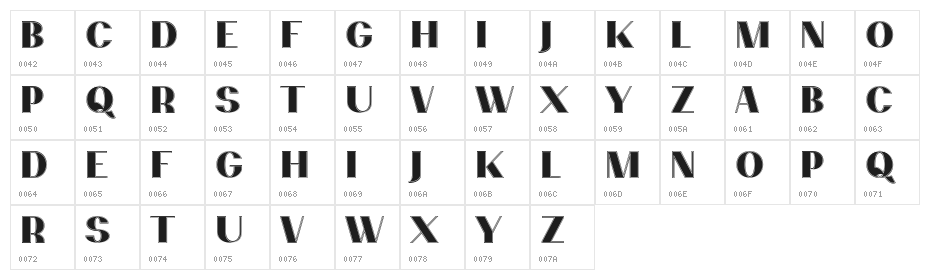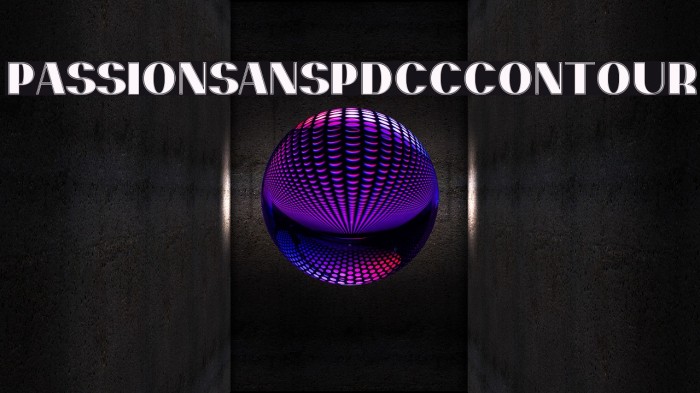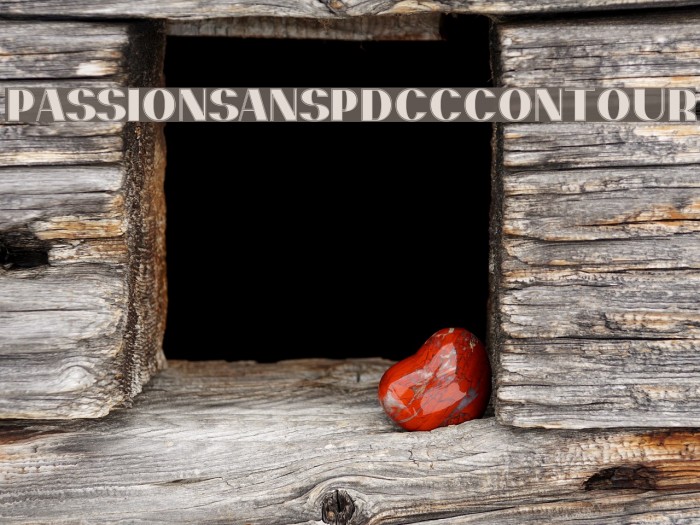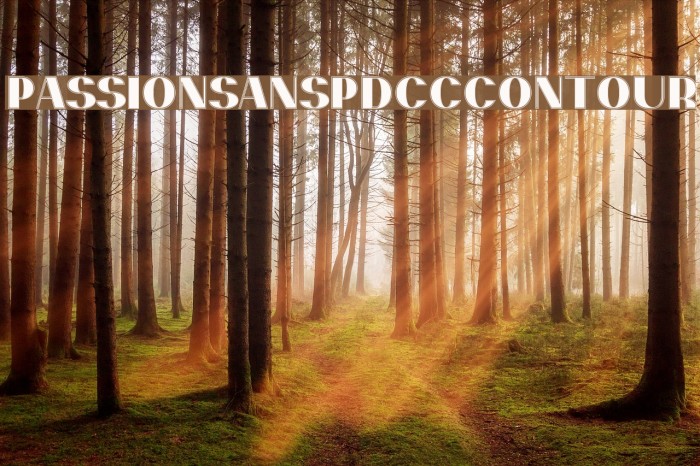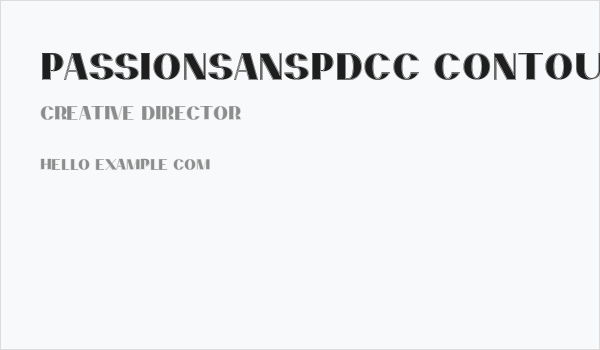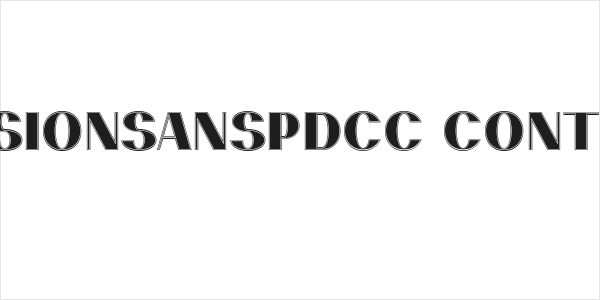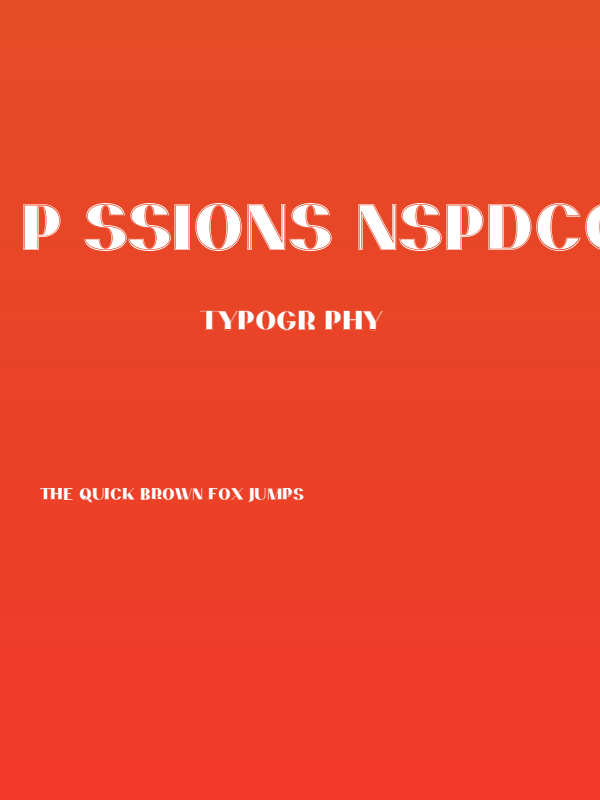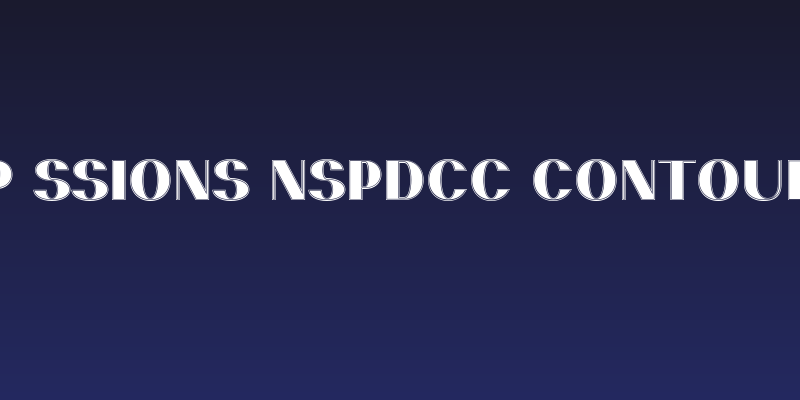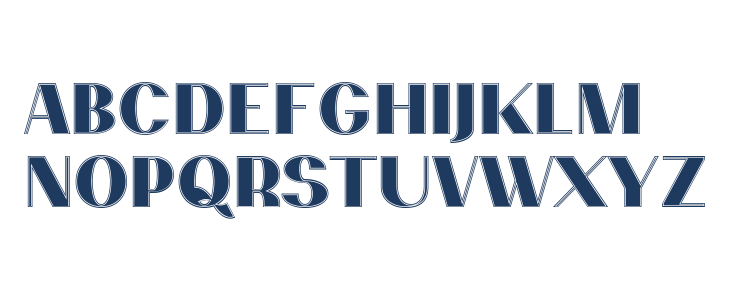
PassionSansPDcc-Contour Font
PassionSansPDcc-Contour Description
This font features a bold and striking design with a contour effect that adds depth and dimension to each character. The uppercase letters are crafted with a strong presence, showcasing a blend of modern and classic styles. The unique contour lines create a shadow-like effect, enhancing the visual appeal and making it suitable for eye-catching designs. The font maintains a consistent weight throughout, providing a balanced and harmonious look. Its distinct style is ideal for projects that require a bold statement, such as branding, posters, and headlines.
| Proposed Projects | Ideal for branding, posters, headlines, and any design needing a bold statement. |